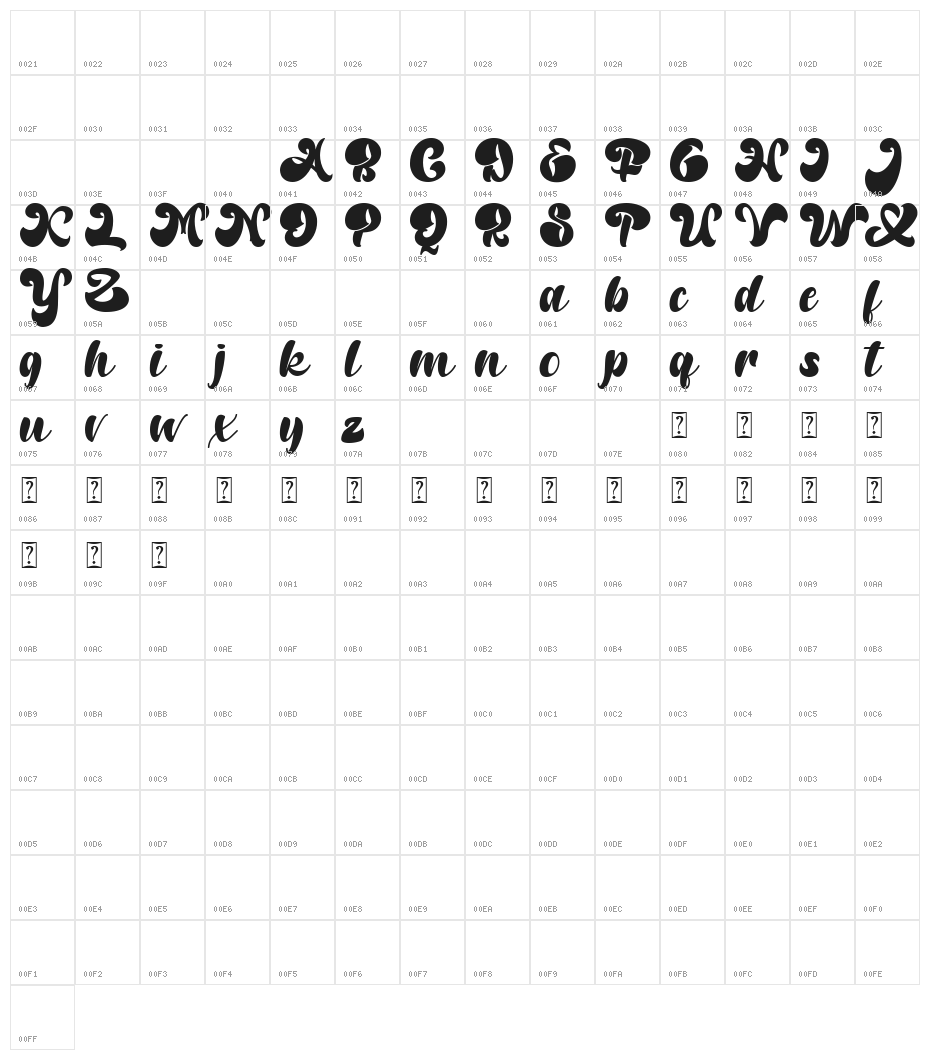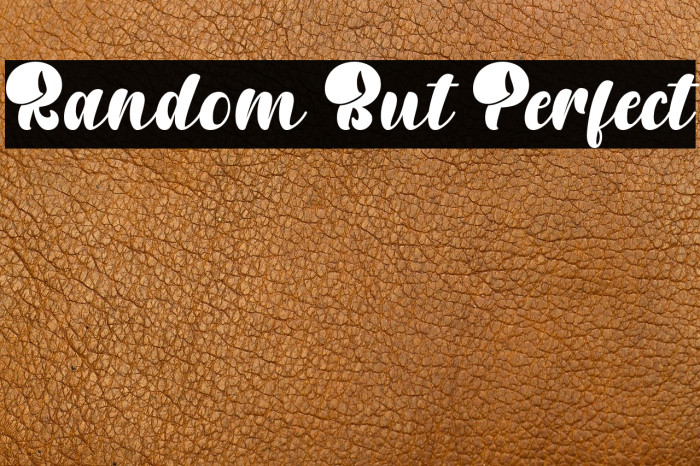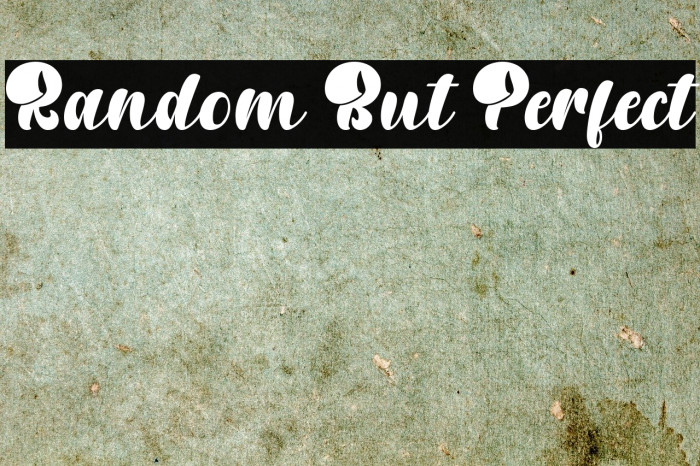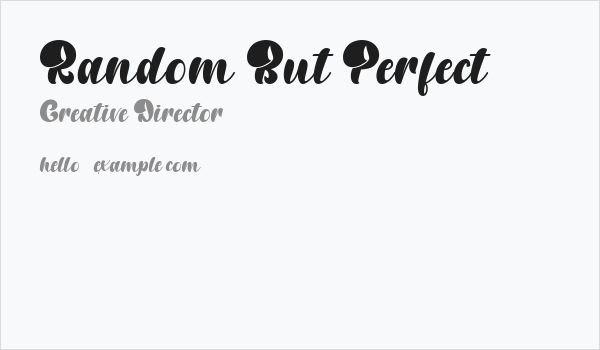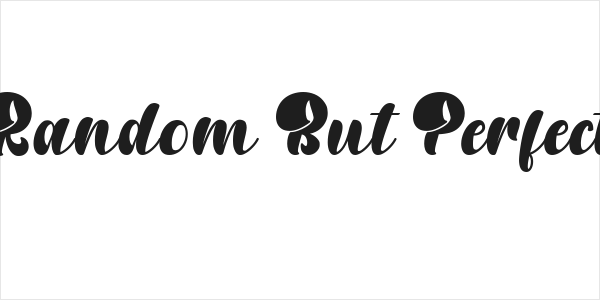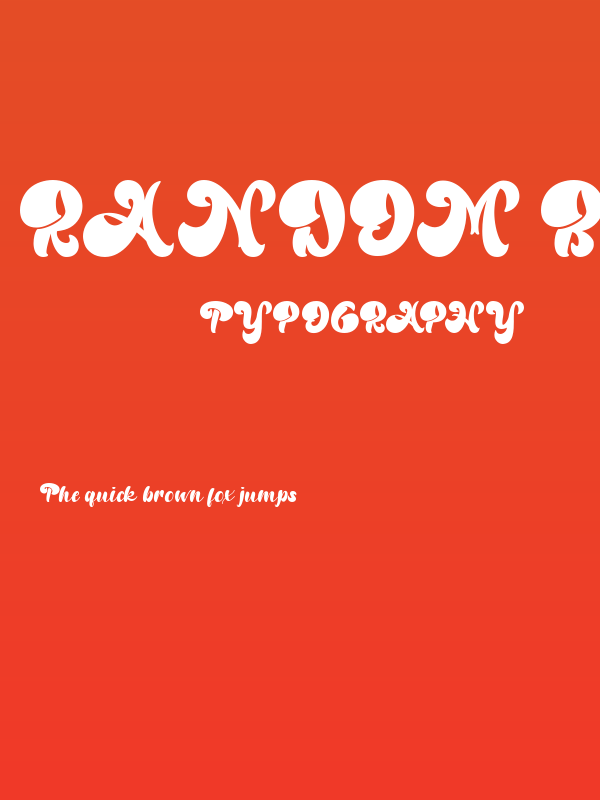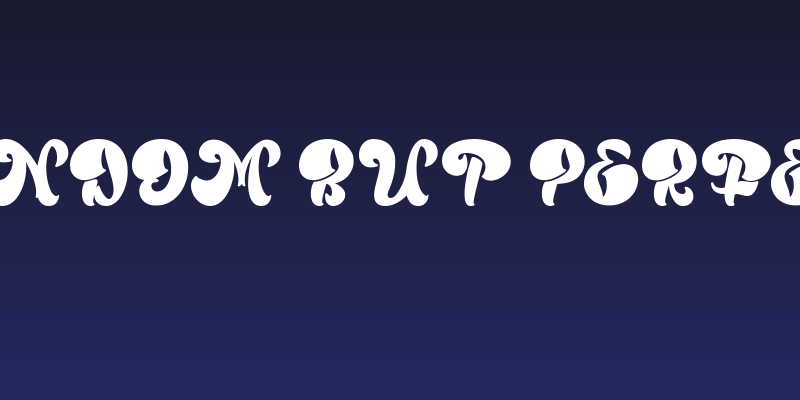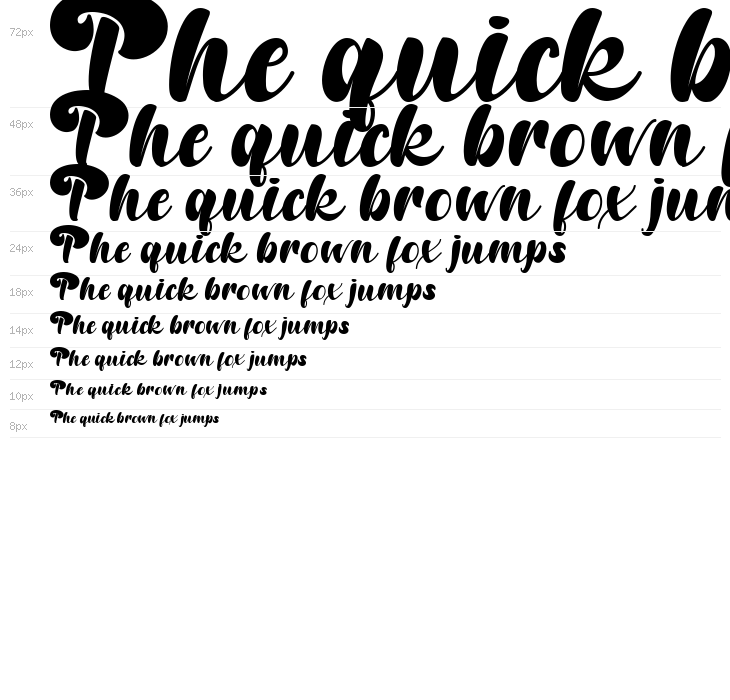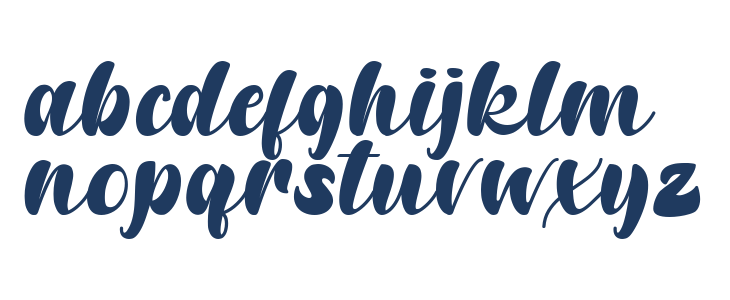
Random But Perfect Font
Random But Perfect Description
This font features a bold and playful design, characterized by its thick, rounded strokes and whimsical flourishes. The uppercase letters exhibit a unique blend of curves and sharp edges, creating a dynamic and eye-catching appearance. The lowercase letters maintain a consistent style, with smooth transitions and a slightly more fluid form. The overall aesthetic is both modern and decorative, making it suitable for a variety of creative applications. The font's distinctive style is further enhanced by its high contrast in stroke thickness, adding to its visual impact.
| Overall Style | Modern, Decorative |
| Use Case | Logos, Headlines, Posters |
| Proposed Projects | Ideal for branding, posters, invitations, and any project requiring a bold, artistic touch. |